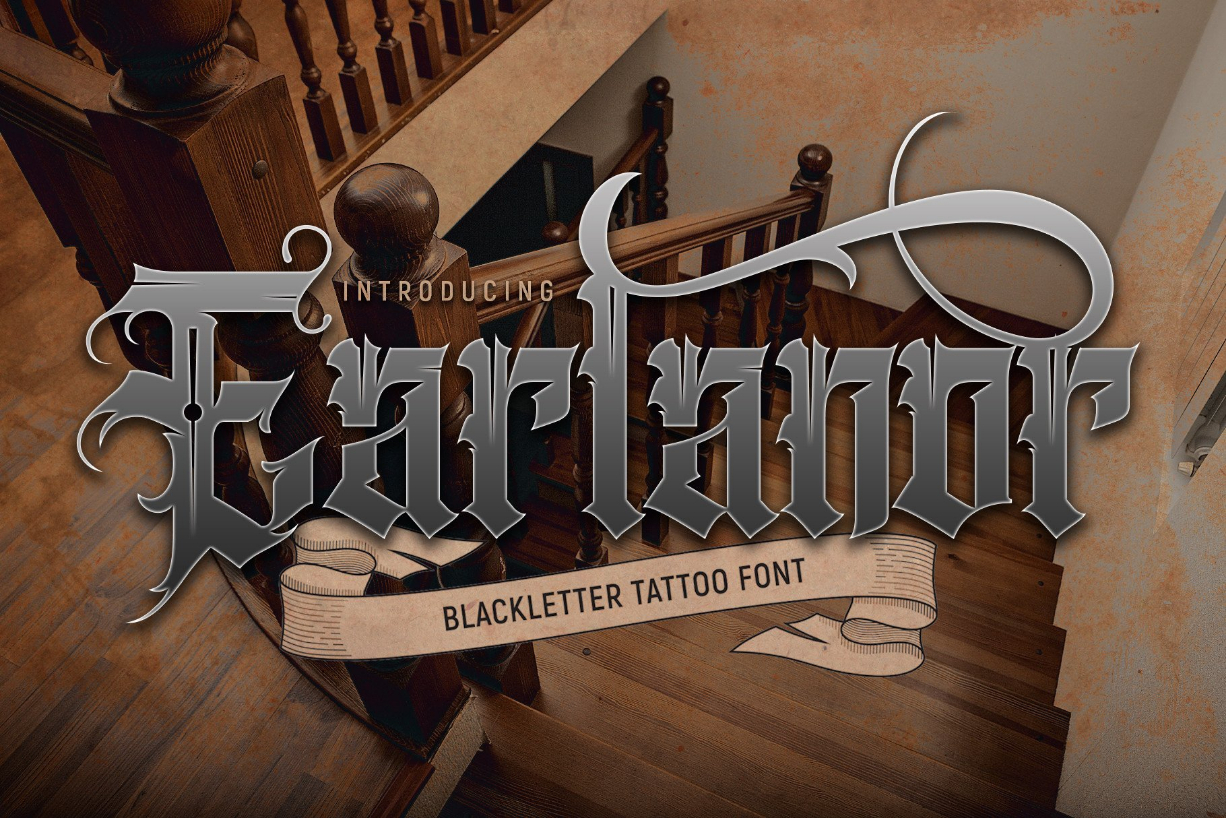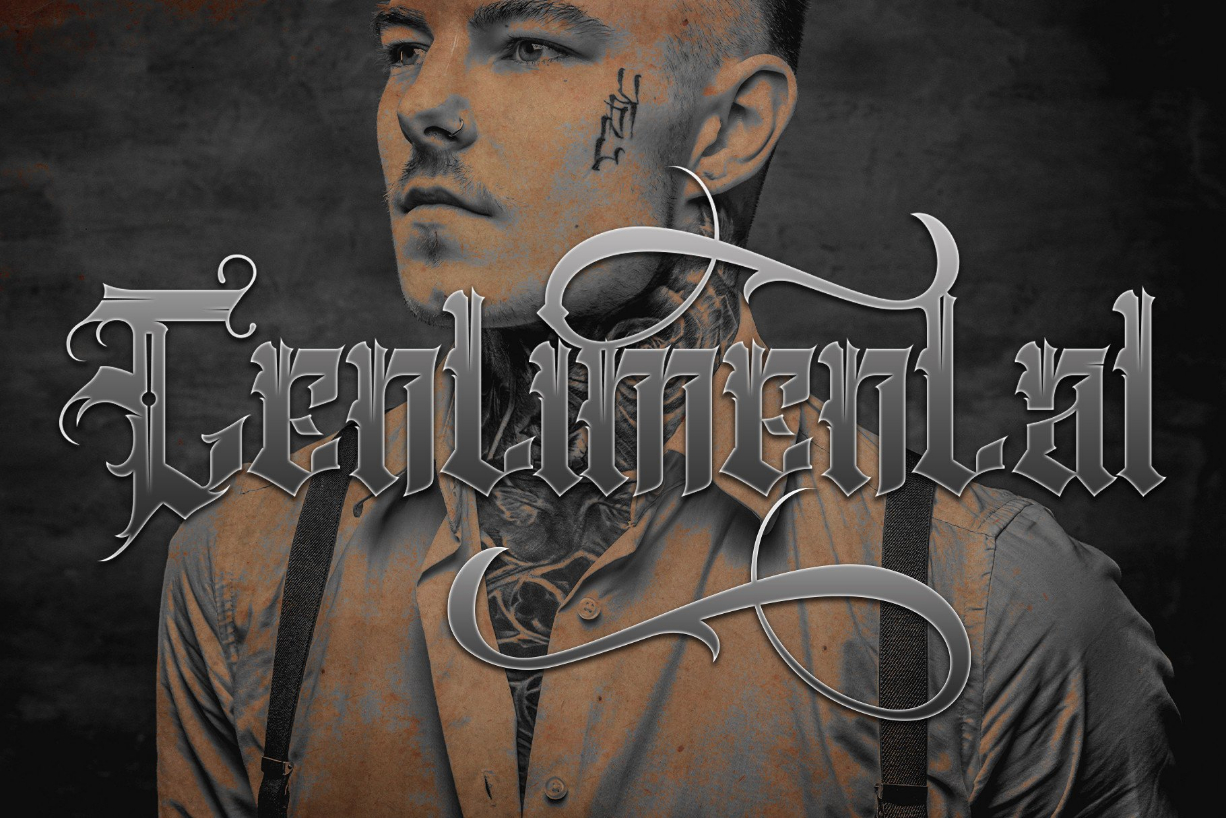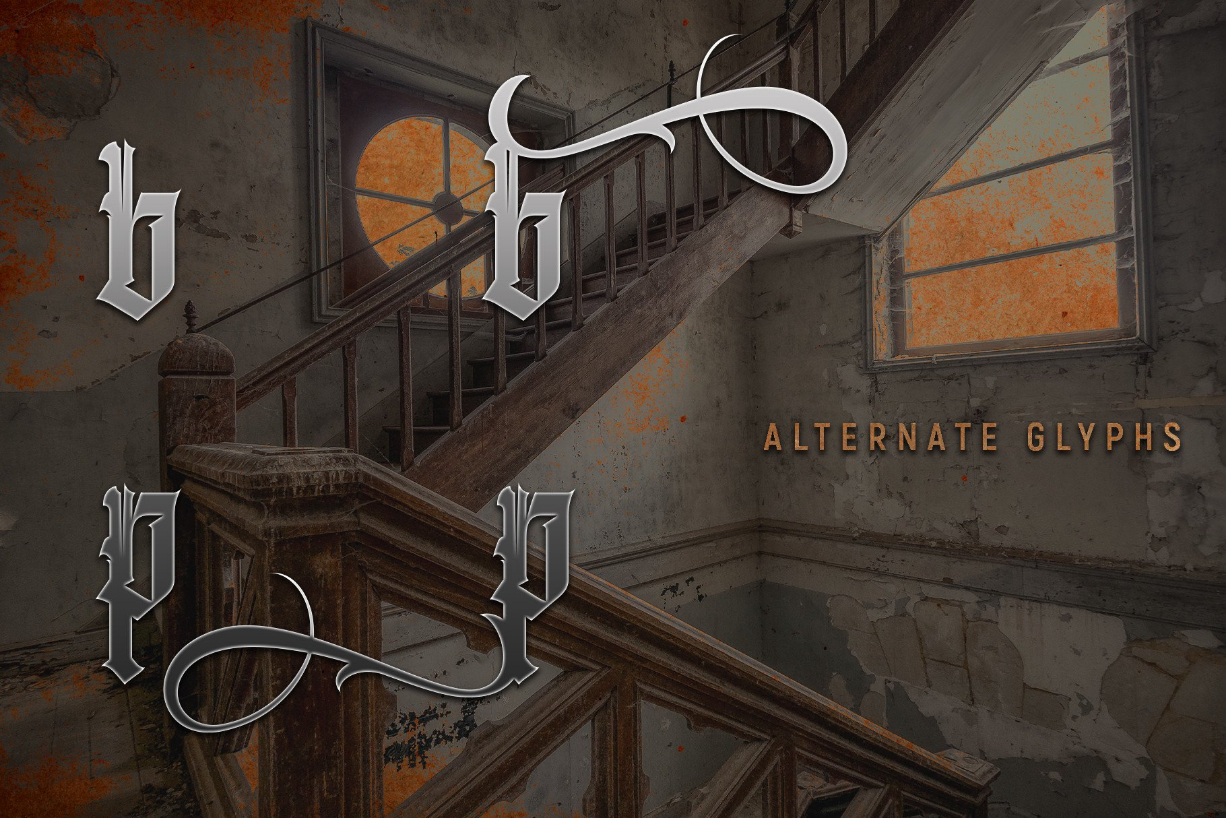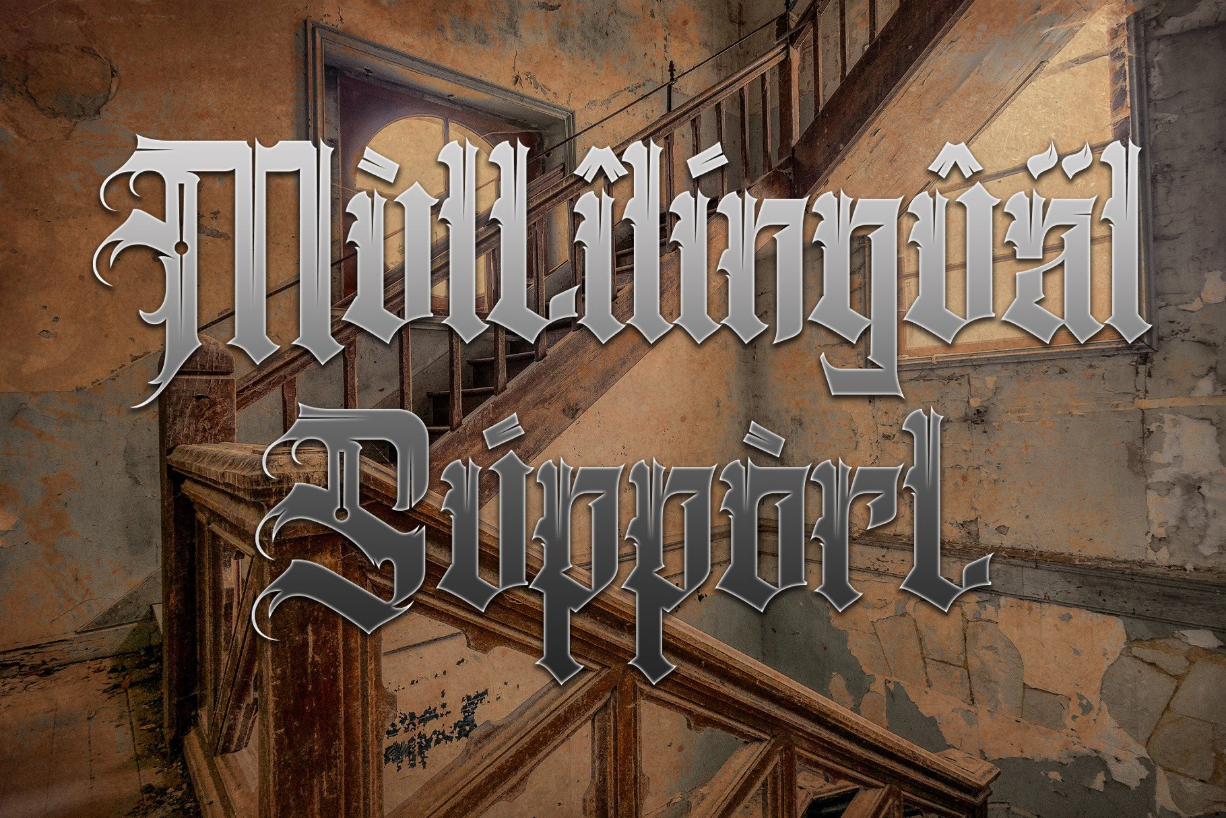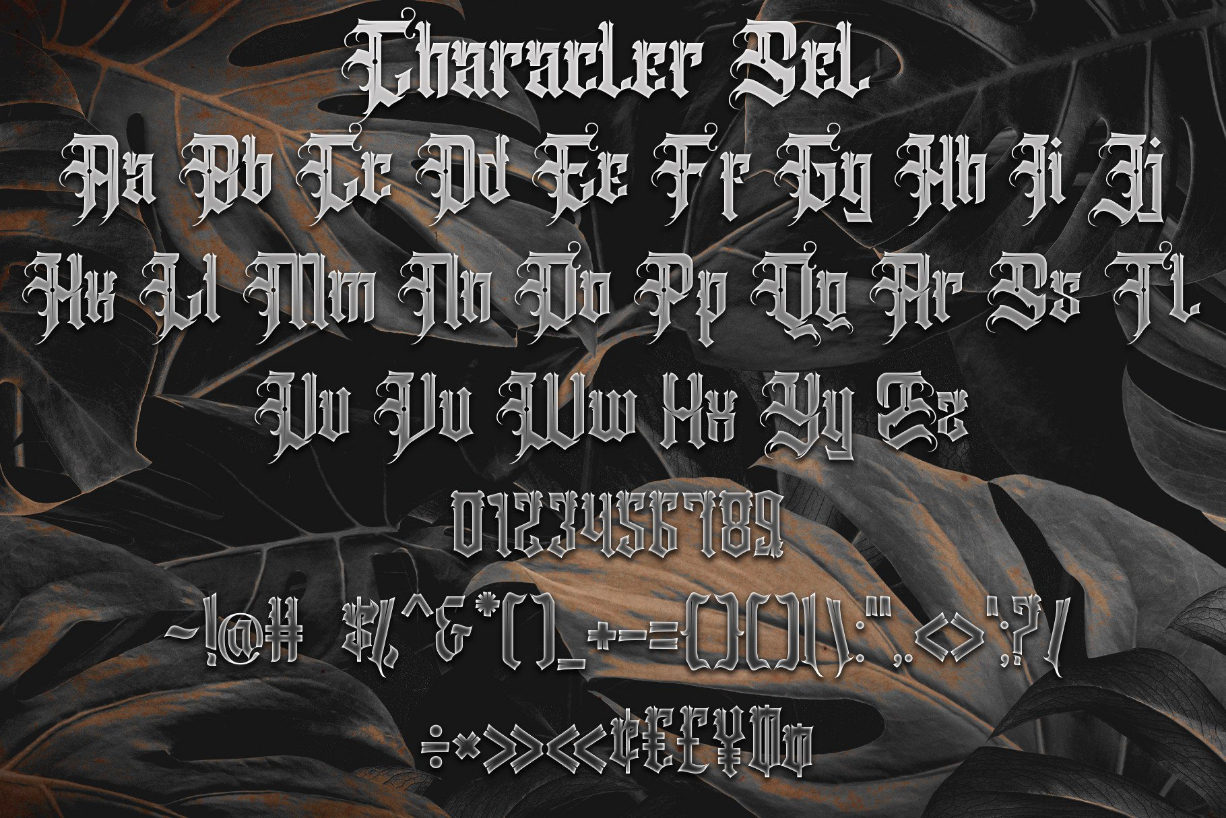
About Earlanor Font
Earlanor is a contemporary blackletter tattoo font that feels right at home on logos, t-shirt designs, posters, flyers, and other brand identity items. Add it confidently to your projects, and you will love the results.